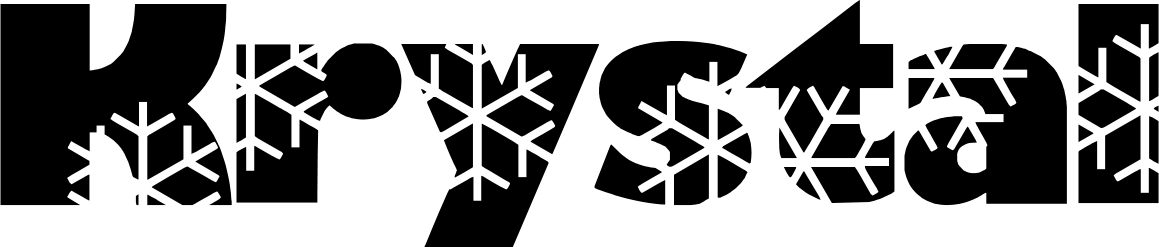
Krystal Font
Designed byAnke-Art
A lovely wintry design would be a lot more appealing with a well-designed snow font. There are cute snowflakes in the fat and ultra-bold characters of this rare font.
Diese beiden Schriften basieren auf Gill Sans Ultra Bold [Condensed], ich habe sie vor Jahren mal für Überschriften gemacht. Krystal passt wunderbar in den Winter, und Hole-Hearted kannst du dann am Valentinstag verwenden 😉